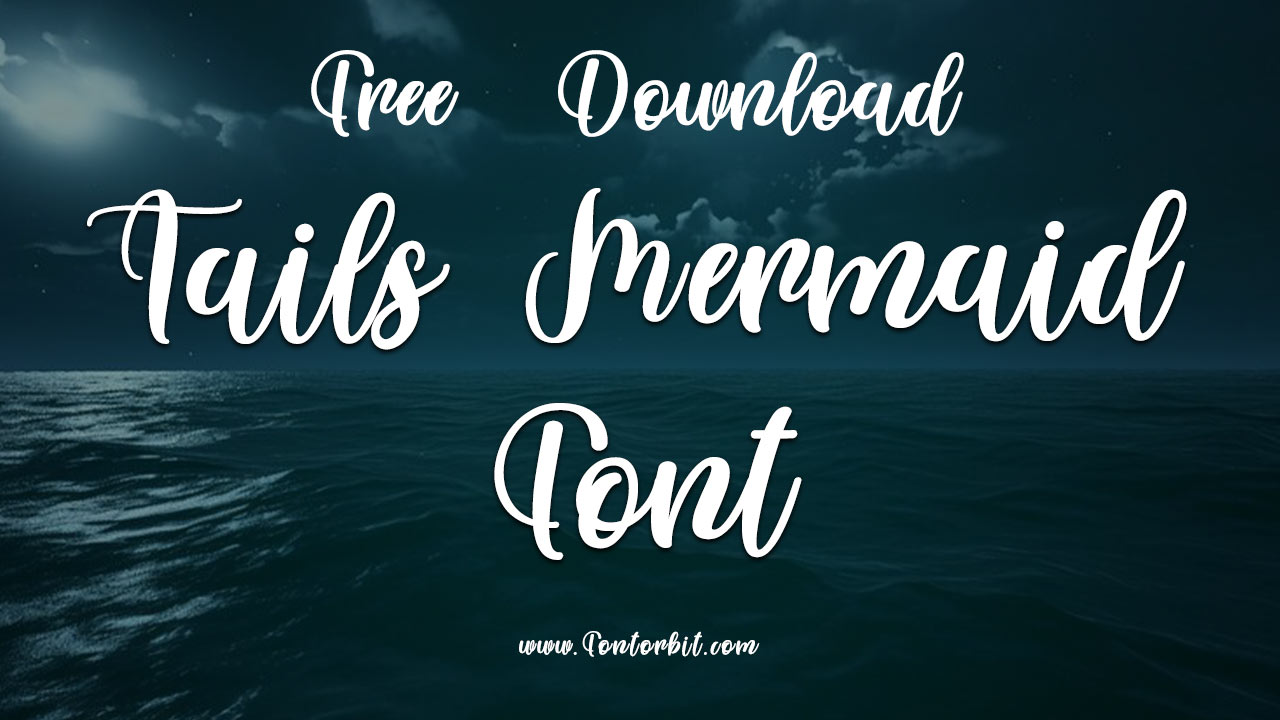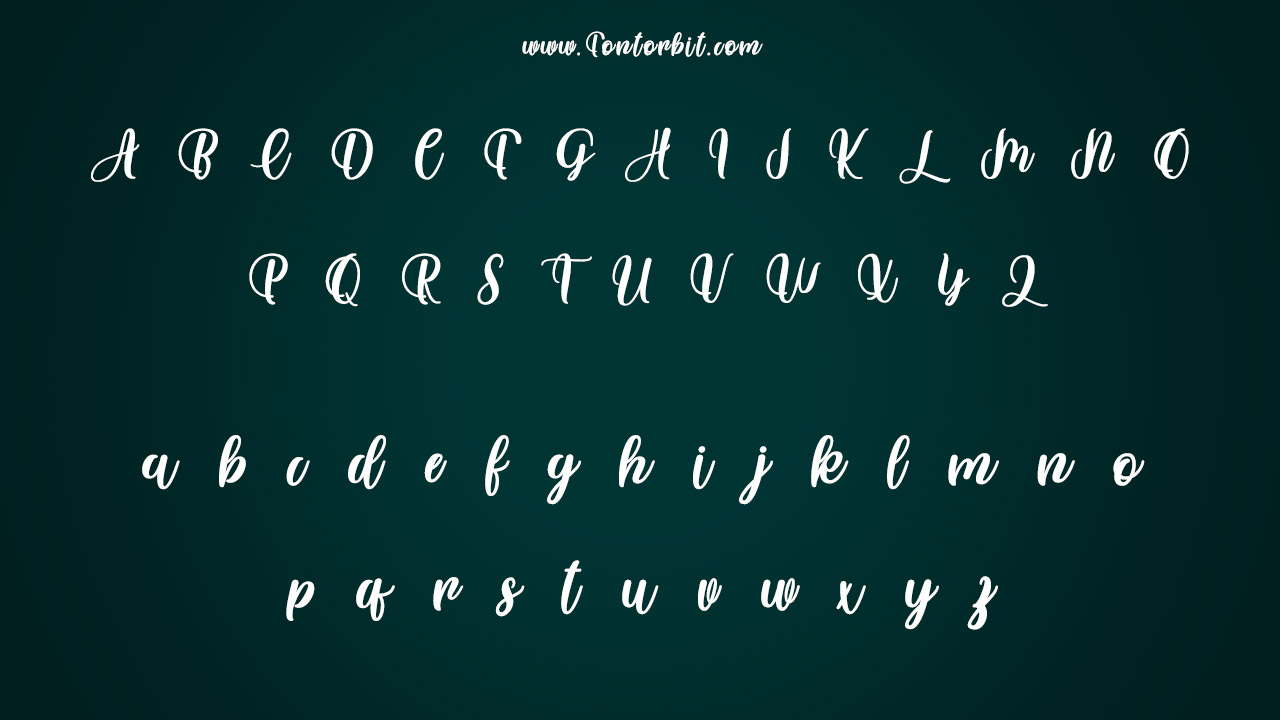
Tails Mermaid Font, designed by FallenGraphic Studio, is a playful and fancy script typeface created on February 7, 2020. Known for its unique tail characters and doodles, this font adds a charming and romantic touch to a variety of design projects.
Types Of Tails Mermaid Font
a. Tails Mermaid Regular
- Greeting Cards
- Decorative Typography
- Crafts and DIY Projects
The Tails Mermaid Font Found In Use
Tails Mermaid Font is ideal for designs that require a playful and romantic touch. It’s frequently used in greeting cards, invitations, and social media graphics where its cute and fancy style can shine. Its decorative elements make it perfect for headlines and any project needing a whimsical flair.
Tails Mermaid Font by FallenGraphic Studio offers a charming and whimsical script style, perfect for adding a romantic and playful touch to various design projects. With its decorative elements and PUA encoding, it provides versatility and ease of use for creative endeavors.
1.What Is The Tails Mermaid Font?
It is a playful and fancy script typeface featuring tail characters and doodles, designed for a whimsical and romantic touch.
3.What Are The Key Characteristics Of The Tails Mermaid Font That Make It Stand Out?
Tails Mermaid stands out with its whimsical script style, cute tail characters, decorative doodles, and romantic, playful vibe.
4.What Are The Stylistic Alternates And Ligatures Available In The Tails Mermaid Font?
The font includes alternate glyphs for varying letter styles and ligatures that combine characters for smooth, flowing text.
5.What Are The Different Weights Available For The Tails Mermaid Font?
Tails Mermaid is available in a single weight: Regular.